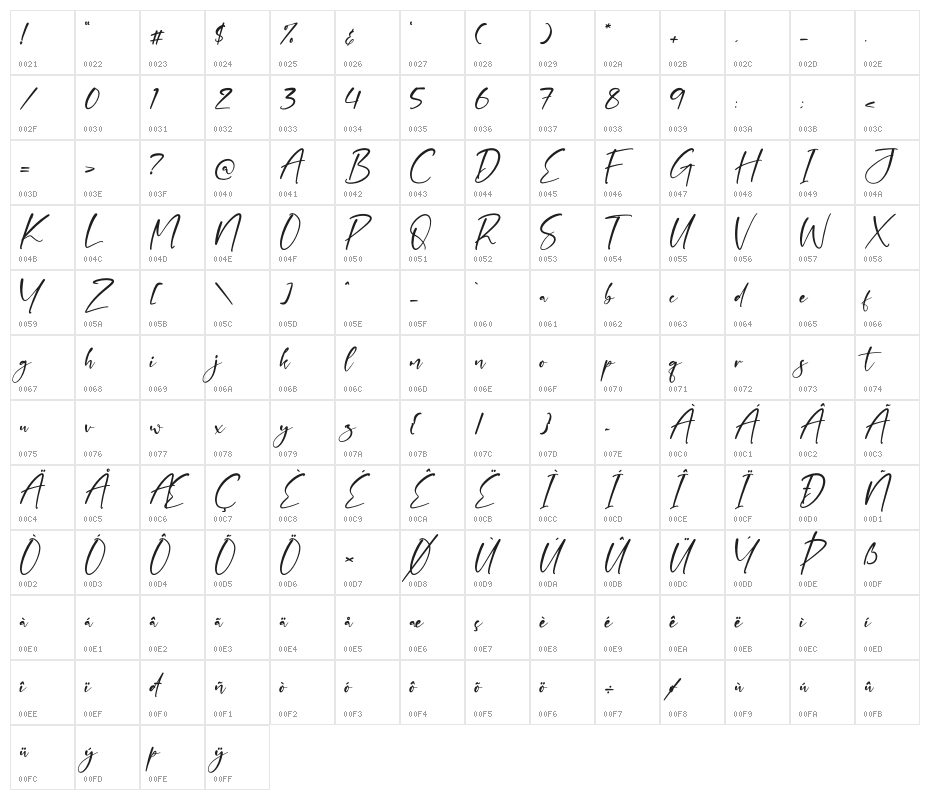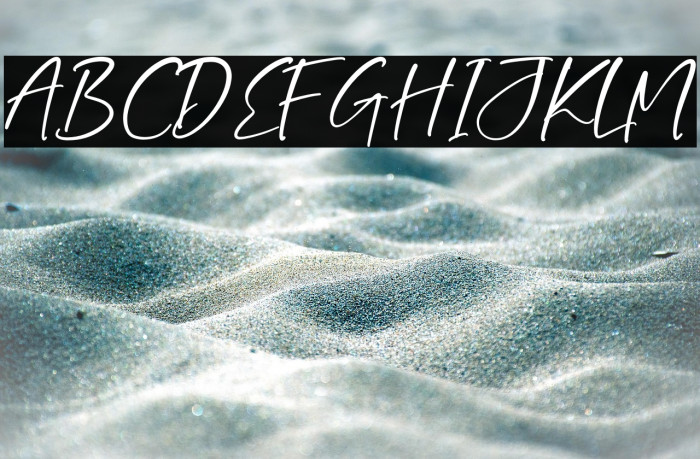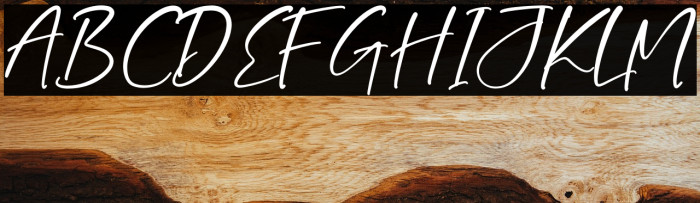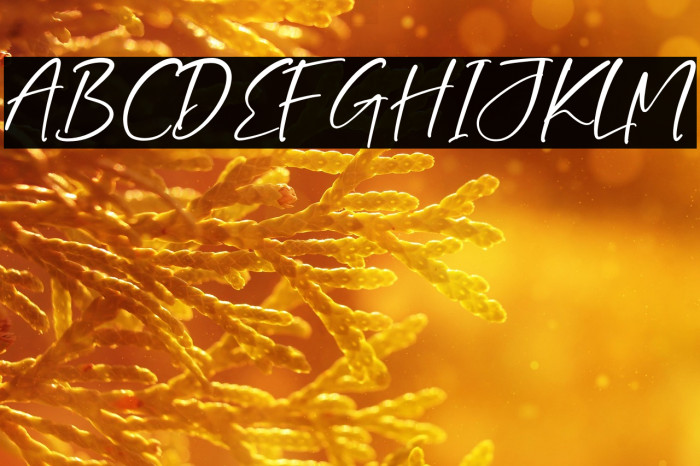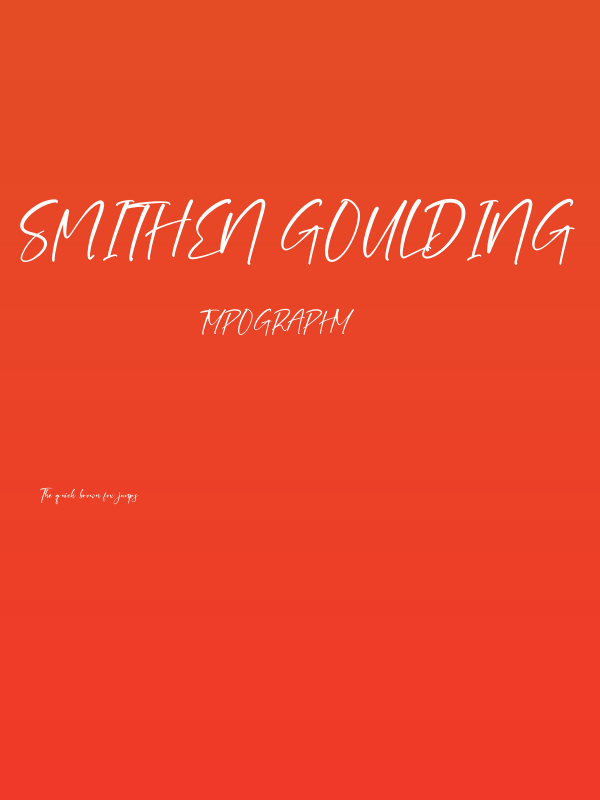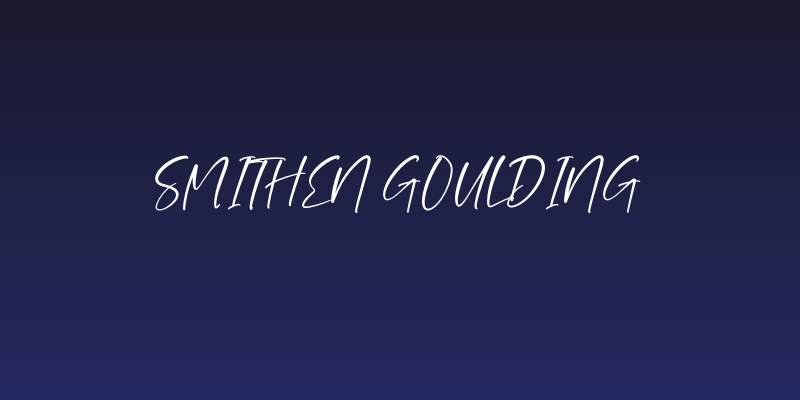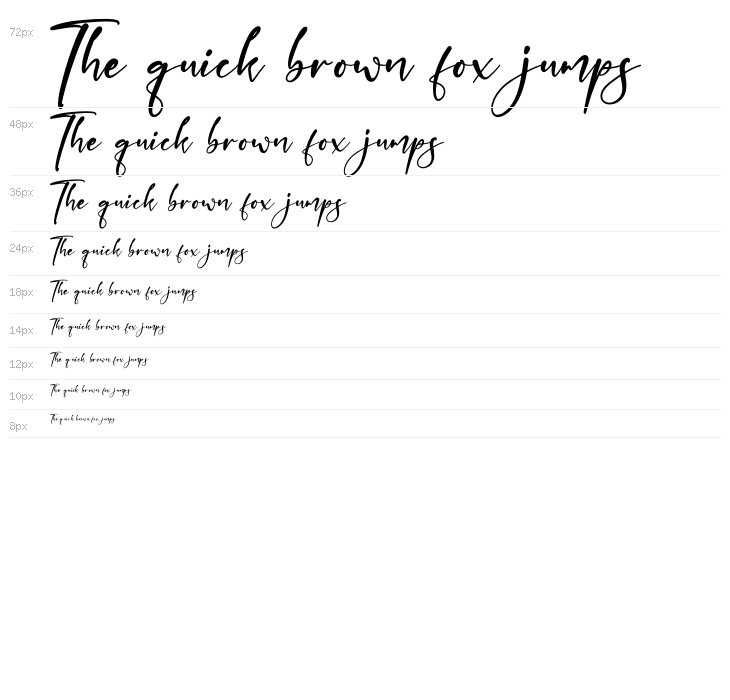
Smithen Goulding Font
Smithen Goulding Description
This font exudes a lively and elegant handwritten style, characterized by its flowing and connected letterforms. The uppercase letters are tall and slightly slanted, giving a sense of movement and grace. The lowercase letters maintain a consistent style, with loops and curves that enhance the script's fluidity. Numbers and special characters are designed to complement the overall aesthetic, maintaining the same dynamic and cursive quality. This font is perfect for projects that require a personal touch, such as invitations, greeting cards, or branding materials.
Overall StyleElegant, Handwritten
Use CaseLogos, Invitations, Greeting Cards
Proposed ProjectsIdeal for wedding invitations, greeting cards, personal branding, and elegant logos.